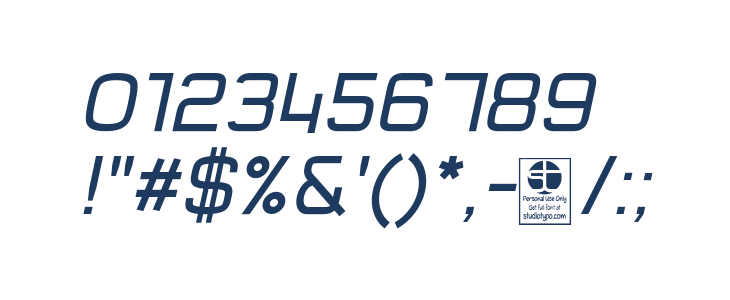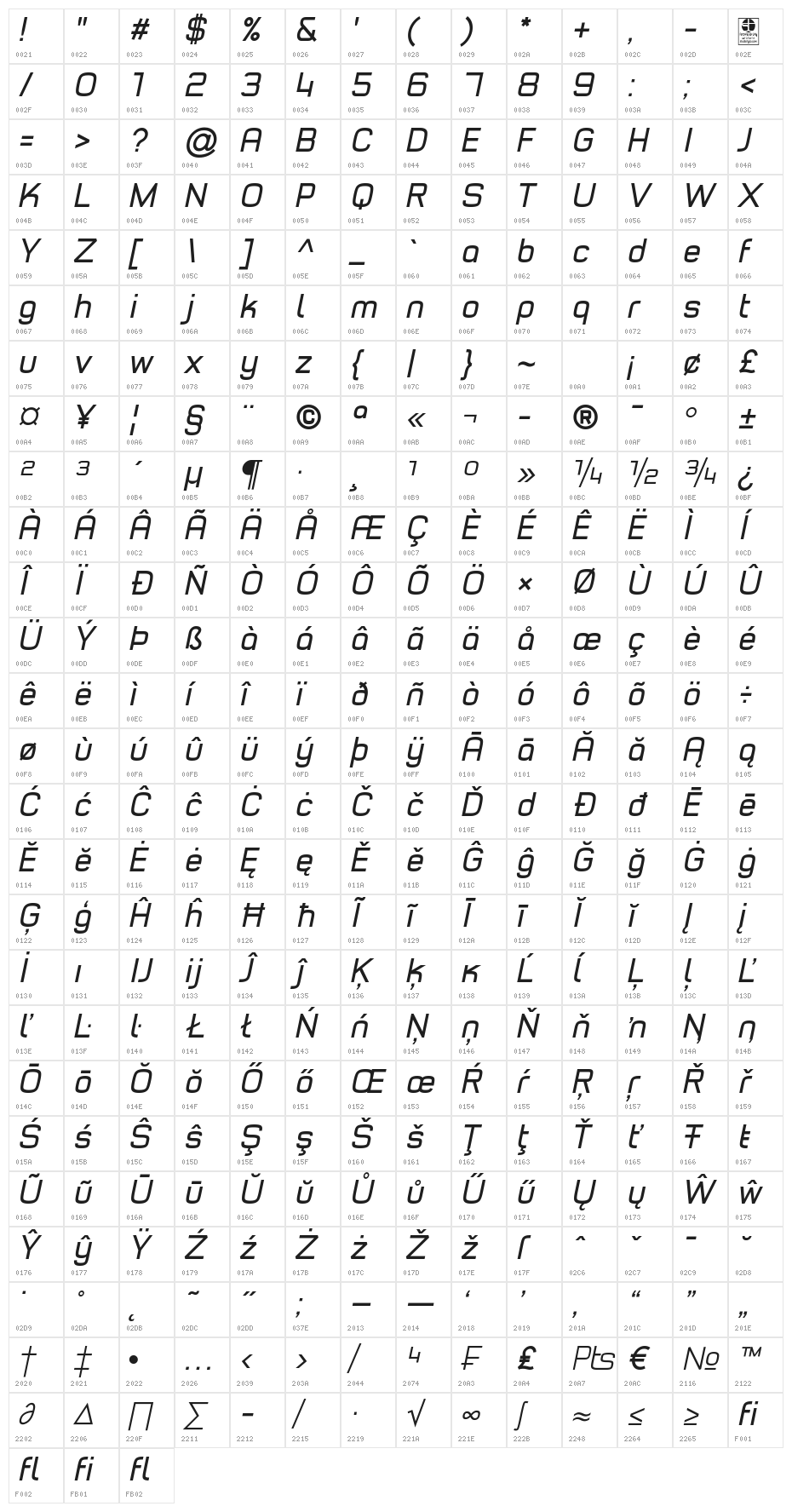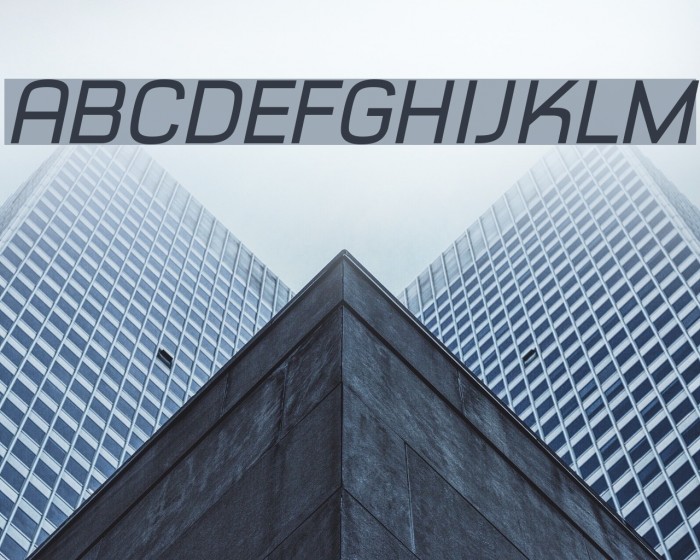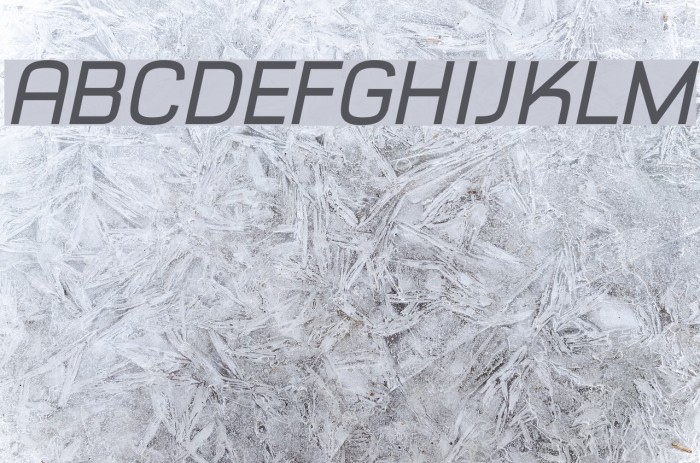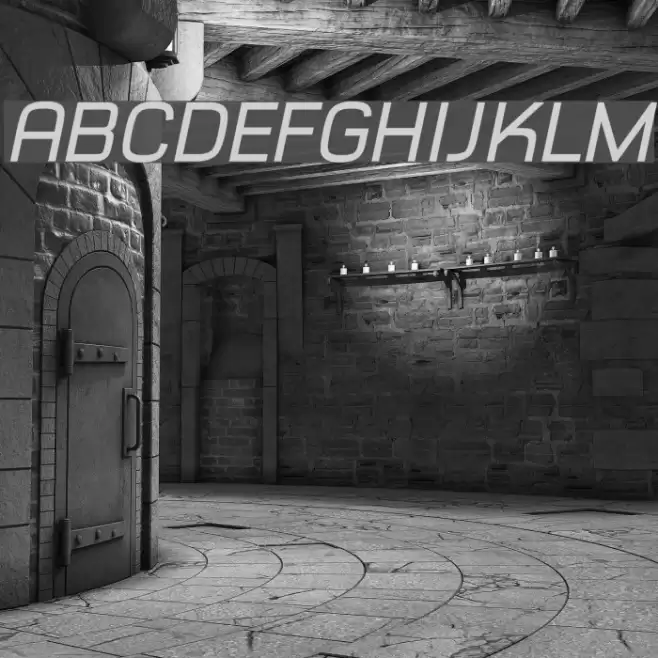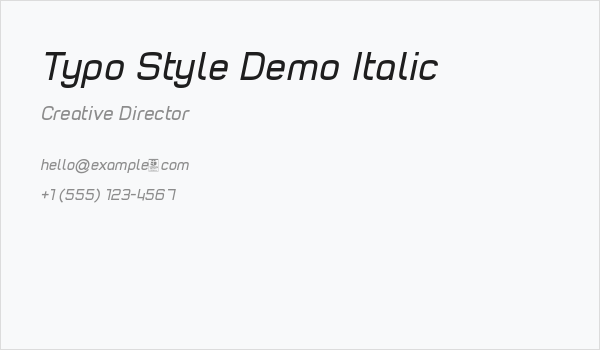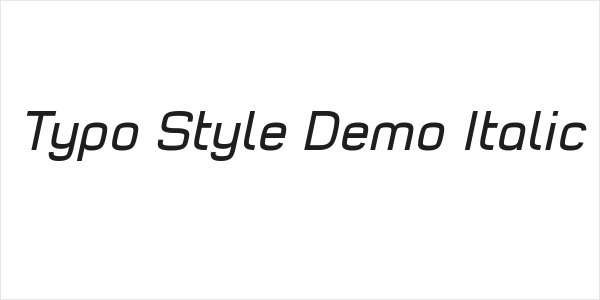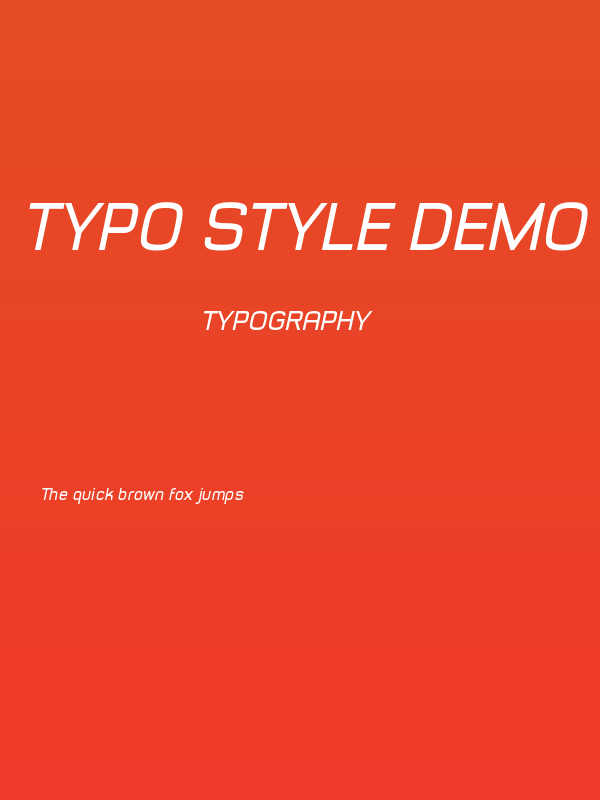
Typo Style Demo Italic Font
Typo Style Demo Italic Description
This font exhibits a sleek and modern design with a distinct italic slant, giving it a dynamic and forward-moving appearance. The characters are clean and streamlined, with smooth curves and a consistent stroke width that enhances readability. The uppercase and lowercase letters maintain a harmonious balance, while the numerals and special characters are crafted with precision. The overall aesthetic is contemporary, making it suitable for a variety of digital and print applications. Its italic style adds a touch of elegance and sophistication, ideal for projects that require a modern yet refined look.